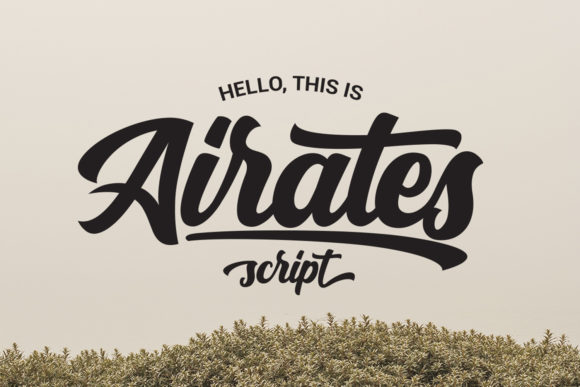
The Designer’s Delight: Airates Font
I’ll never forget the time I was working on a logo design project for a trendy new coffee shop. My client wanted a bold, eye-catching font that would make their brand stand out. I scoured the internet for hours, trying to find the perfect fit. That’s when I stumbled upon Airates Font. It was love at first sight! 💕
Airates is a gorgeous and bold handwritten font, crafted to give your headlines and logotype projects a stylish touch. This font reads as strong, confident, and dynamic and can add tons of nostalgic character to your designs.
- ✨ Unique Character: Airates has a distinct, hand-crafted feel that sets it apart from other fonts.
- ✅ High Versatility: This font works beautifully for both digital and print projects.
- 💥 Emotional Connection: Airates evokes a sense of nostalgia and playfulness, making it perfect for brands that want to connect with their audience on a personal level.
⚠️ While Airates is an amazing font, it’s not without its limitations. For example, it can be a bit tricky to read at smaller font sizes, so it’s best used for headlines and titles rather than body text.
🤔 Some users might find that the font’s boldness can be overwhelming if not used thoughtfully in their design.
One of the best things about Airates is its range of OpenType features, glyphs, and stylistic alternates. These features allow you to customize your text and add a unique touch to your design.
Some of the OpenType features you can explore in Airates include:
- Stylistic Alternates: Swap out letters for alternate versions with a different look.
- Glyphs: Access special characters and symbols to add visual interest to your text.
- Ligatures: Combine letters for a more fluid, connected look.
The Story Behind Airates Font
Airates Font was designed by a team of creatives who wanted to create a font that would capture the essence of nostalgia and playfulness. Inspired by vintage typography and hand-lettering, Airates is the result of hours of careful craftsmanship and attention to detail.
Q: What is Airates Font best used for?
A: Airates Font is best used for headlines, titles, and logotype projects where you want to make a bold statement.
Q: Is Airates Font suitable for body text?
A: While Airates Font is beautiful, it’s not ideal for body text due to its boldness and size. It’s best used for headlines and titles.